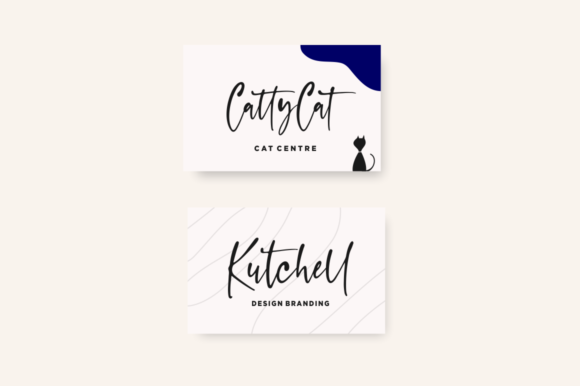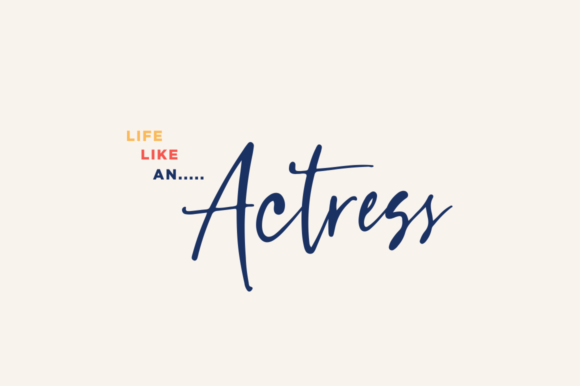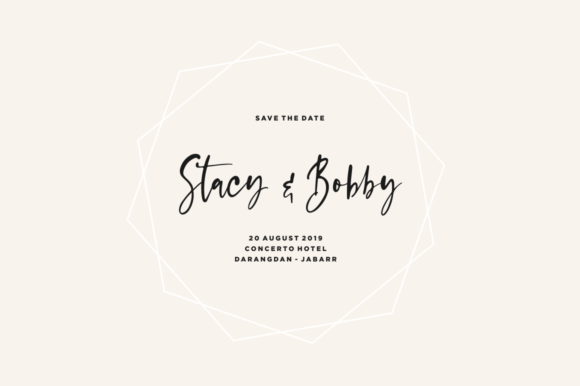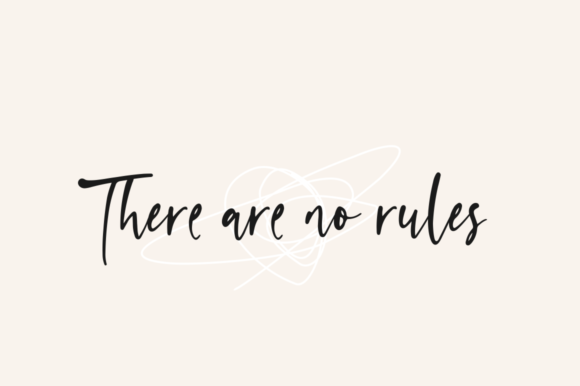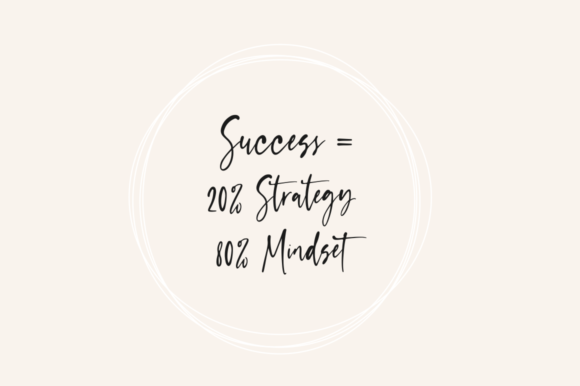
Capappa Font
About Capappa Font
Capappa is a natural handwritten font that is perfect for a wide variety of projects. Get inspired by its eye-catching appeal.